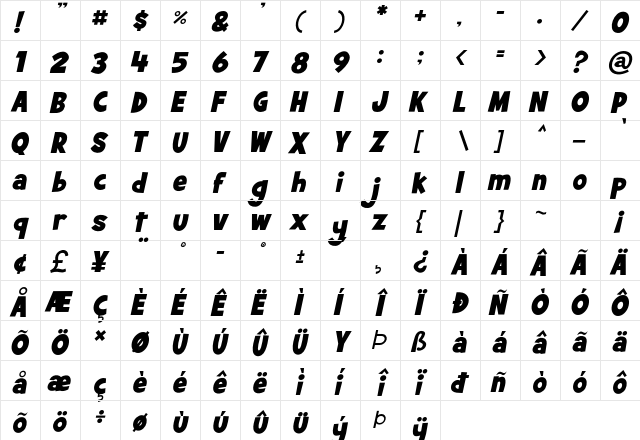
Summer Blaster Italic
| Designer | Fachranheit 2020 |
Design Context for Summer Blaster Typeface
Summer Blaster is a composed and adaptable typeface that performs quietly and consistently across a wide range of design contexts. The slanted form adds forward momentum and visual energy.
Pro Tip: Try Summer Blaster for annotation and caption copy alongside an upright companion — the contrast in angle creates a dynamic but ordered typographic system.